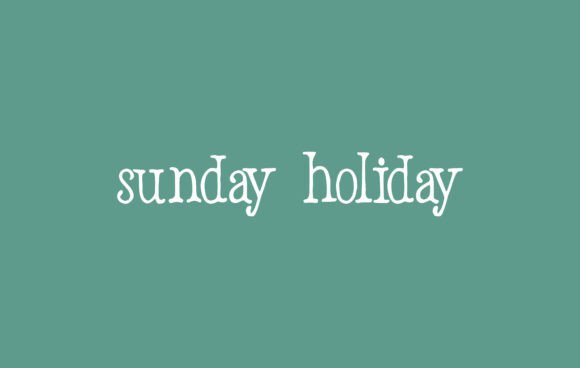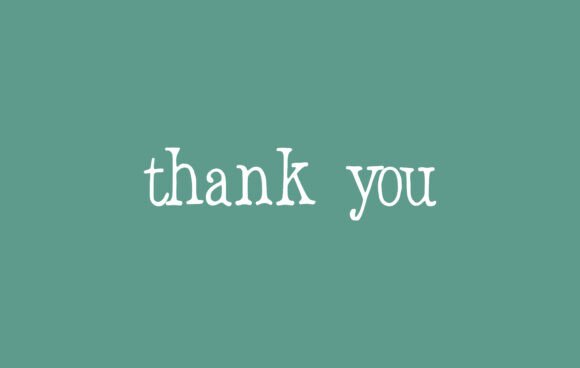
Gavin Font: The Ultimate Handwritten Font for Creative Designs
Are you looking for a font that can add a touch of romance and elegance to your designs? Look no further than Gavin Font, an authentic handwritten font that is sure to become your new favorite. With its unique blend of sophistication and playfulness, Gavin Font is the perfect choice for designers and crafters who want to take their creative ideas to the next level.
What Makes Gavin Font So Special?
Gavin Font is expertly designed to provide a true handwritten feel, with a romantic touch that is sure to capture the hearts of your audience. The font is highly legible, making it perfect for use as both title and body text. Its versatility is unmatched, and it can be used for a wide range of design projects, from magazine headlines and social media graphics to branding, wedding invitations, and cards.
Key Features of Gavin Font
- Authentic Handwritten Style: Gavin Font boasts an authentic handwritten style that is sure to add a personal touch to your designs.
- Romantic Touch: The font’s romantic touch makes it perfect for designs that require a touch of elegance and sophistication.
- High Legibility: Gavin Font is highly legible, making it perfect for use as both title and body text.
- Versatile: The font can be used for a wide range of design projects, from magazine headlines and social media graphics to branding, wedding invitations, and cards.
Why Designers and Crafters Love Gavin Font
Gavin Font has quickly become a favorite among designers and crafters, and for good reason. The font’s unique blend of sophistication and playfulness makes it perfect for a wide range of design projects. Here are just a few reasons why designers and crafters love Gavin Font:
- Easily Readable: Gavin Font is highly legible, making it easy for readers to quickly and easily understand the text.
- Unique and Creative: The font’s authentic handwritten style and romantic touch make it a unique and creative choice for designers and crafters.
- Perfect for Branding: Gavin Font is perfect for branding projects, as it provides a consistent and recognizable visual identity.
- Great for Wedding and Event Designs: The font’s romantic touch makes it perfect for wedding invitations, event graphics, and other designs that require a touch of elegance.
How to Use Gavin Font in Your Designs
Using Gavin Font in your designs is easy. Here are a few tips to get you started:
- Pair it with Other Fonts: Gavin Font pairs well with other fonts, making it easy to create visually appealing designs.
- Use it for Headlines and Body Text: The font’s high legibility makes it perfect for use as both headlines and body text.
- Add a Personal Touch: Use Gavin Font to add a personal touch to your designs, making them more relatable and engaging.
Gavin Font is an authentic handwritten font with a romantic touch that is sure to become your new favorite. With its unique blend of sophistication and playfulness, Gavin Font is the perfect choice for designers and crafters who want to take their creative ideas to the next level. Whether you’re working on a magazine headline, social media graphic, branding project, or wedding invitation, Gavin Font is the perfect choice.
Get Ready to Elevate Your Designs with Gavin Font
Don’t settle for bland and boring fonts. Elevate your designs with Gavin Font, the ultimate handwritten font for creative designs. With its authentic handwritten style, romantic touch, and high legibility, Gavin Font is the perfect choice for designers and crafters who want to create visually appealing and engaging designs.